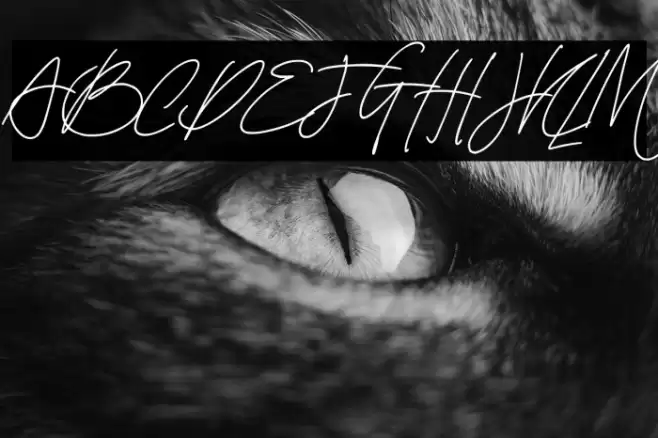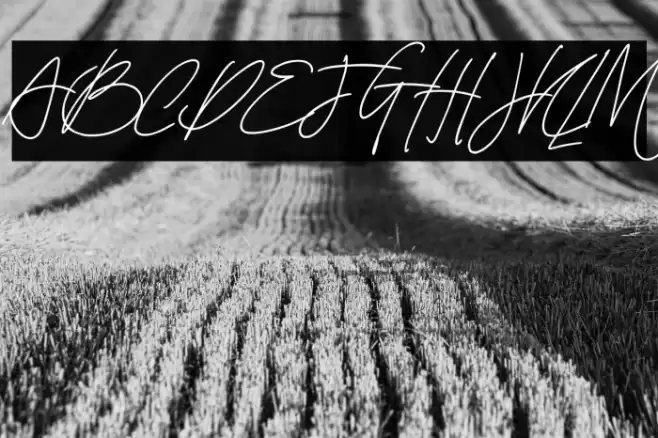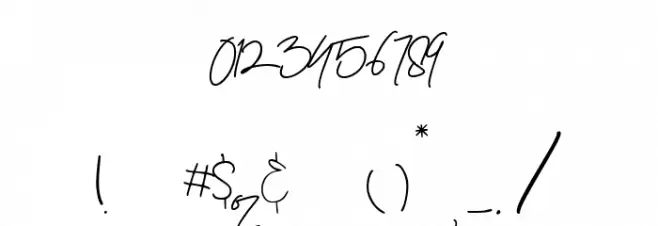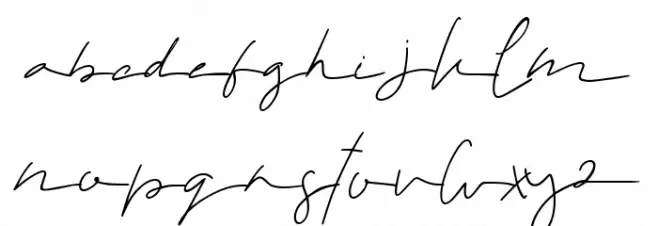
North Grenada Regular Font
North Grenada Regular Description
This font exudes a casual and artistic flair, characterized by its handwritten style that mimics the fluidity and spontaneity of natural handwriting. The letters are connected in a cursive manner, giving it a seamless and flowing appearance. The strokes are thin and delicate, adding an elegant touch to the overall design. This font is perfect for projects that require a personal and intimate feel, such as invitations, greeting cards, or personal branding. Its unique style captures attention while maintaining readability, making it versatile for various creative applications.
A fluid, handwritten font with a casual and artistic style from Uncategorized fonts.
- Font: North Grenada Regular
- Proposed Projects: Ideal for invitations, greeting cards, personal branding, and artistic projects.
- Weight: Light
- Overall Style: Casual, Artistic
- Use Case: Headlines, Artistic projects, Personal branding